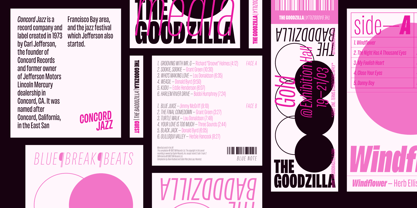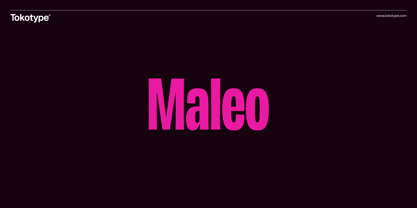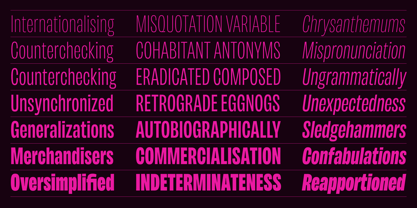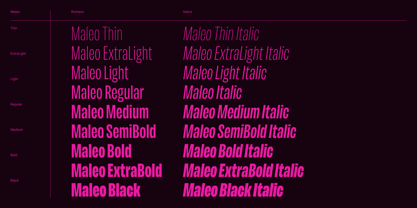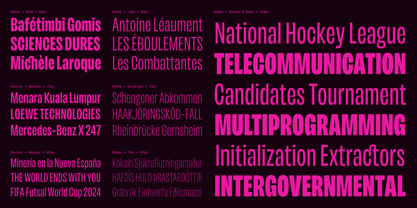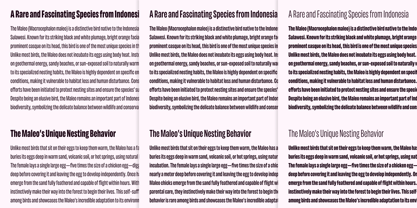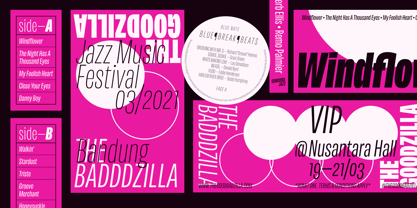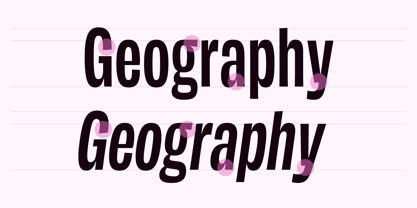
Maleo
by Tokotype
Maleo Font Family was designed by Aditya Wiraatmaja and published by Tokotype. Maleo contains 18 styles family package options.
Maleo is a modern display sans with grotesque roots, inspired by Benton’s Franklin Gothic and Alternate Gothic. Designed by Aditya Wiraatmaja, Maleo was crafted for impactful, large-scale use. Its subtle flares and angled cut terminals lend it a warm, approachable character, balancing strength with charm. With 18 styles, ranging from Thin to Black with matching italics, Maleo is a versatile display typeface that commands attention in headlines while maintaining a distinctive personality.